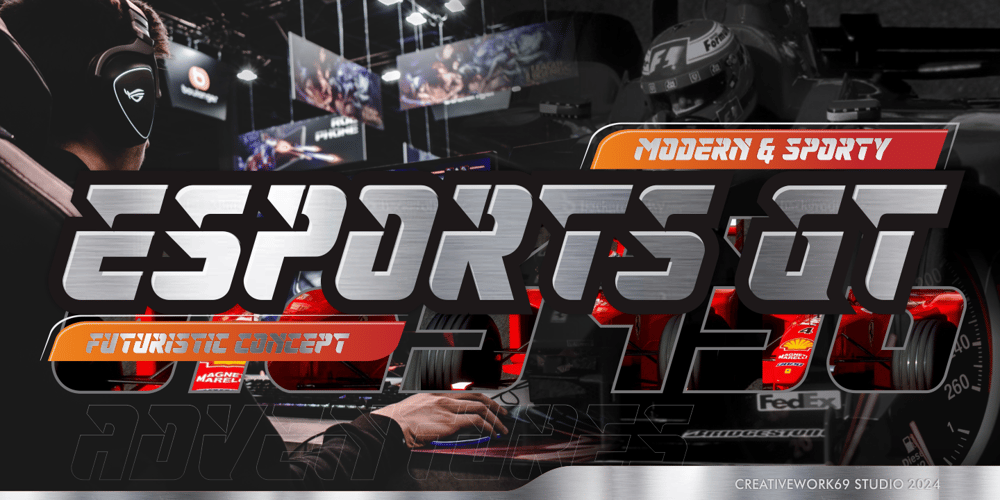
Esport GT Font Family was designed by Daddi Daryawan and published by Creativework Studio. Esport GT contains 1 styles and family package options. Esports GT is a dynamic and modern typeface that radiates a bold, sporty, and cutting-edge vibe. With its sharp edges, symmetrical curves, and sleek lines, it’s the perfect choice for branding products and logos across industries like automotive, electronics, and mechanics. This font injects a touch of sophistication into any design project with its robust and distinctive aesthetic. Harness the power of Esports GT to amplify the visual allure and modern flair of your designs.Uppercase